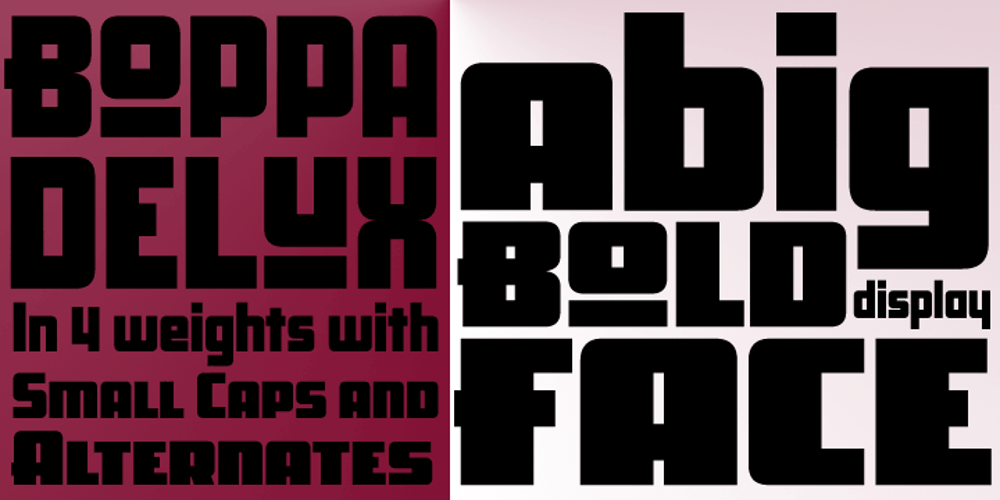
Boppa Delux
Boppa Delux font
Boppa Delux Font Family was designed by Patricia Lillie and published by Patricia Lillie. Boppa Delux contains 4 styles and family package options. Say it with authority and style with Boppa Delux, a big, bold display font in four weights. For use in OpenType aware applications, Boppa Delux includes small caps, alternates, case sensitive forms, and more.